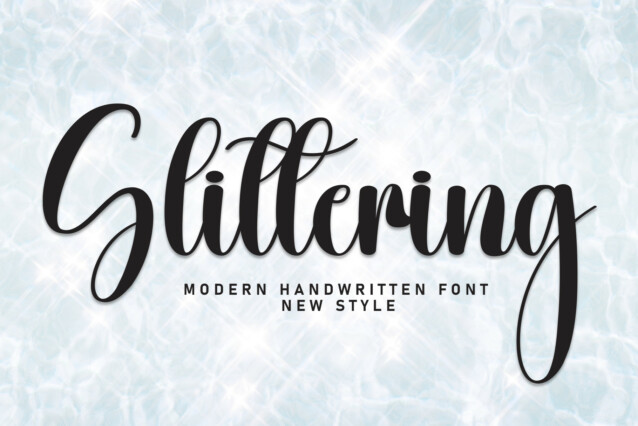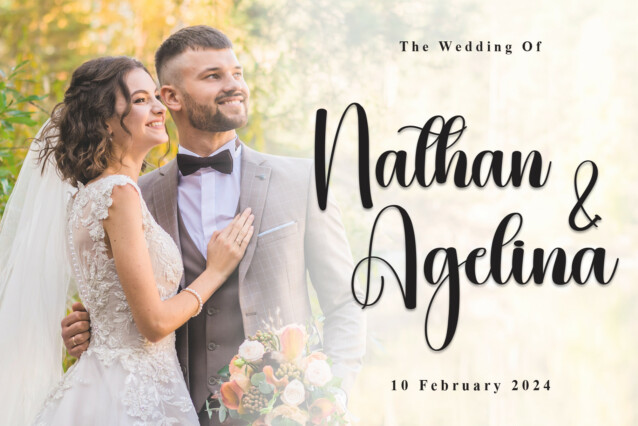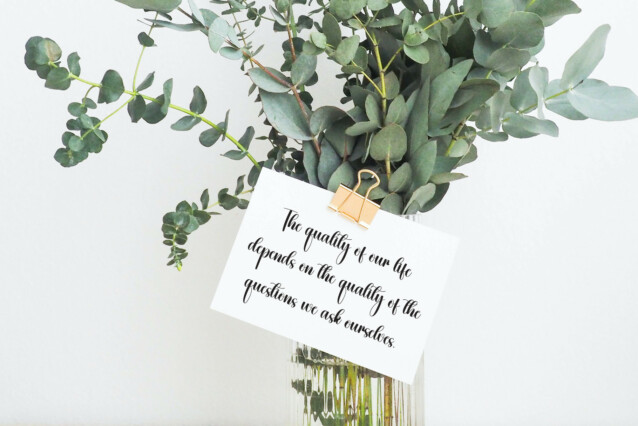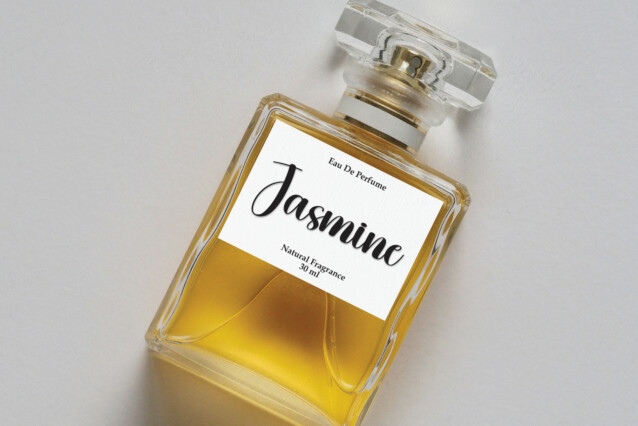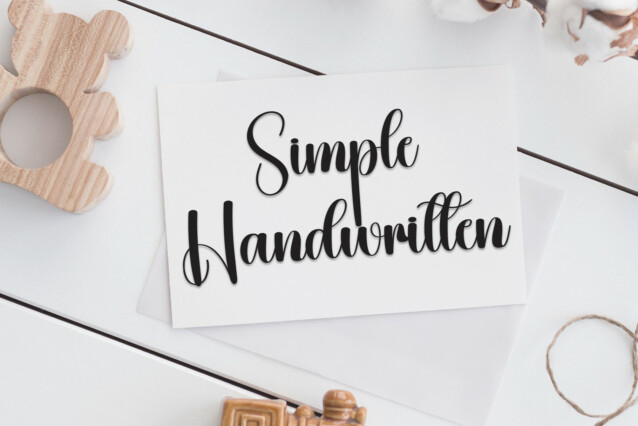
Glittering Script Font
Glittering Script Font is a stylish handwritten font that epitomizes the expressive beauty of brush lettering. With confident strokes and dynamic letterforms, it achieves a perfect blend of modernity and artistic flair. Ideal for projects seeking a bold and contemporary handwritten aesthetic, Glittering adds a touch of expressive elegance to your designs.